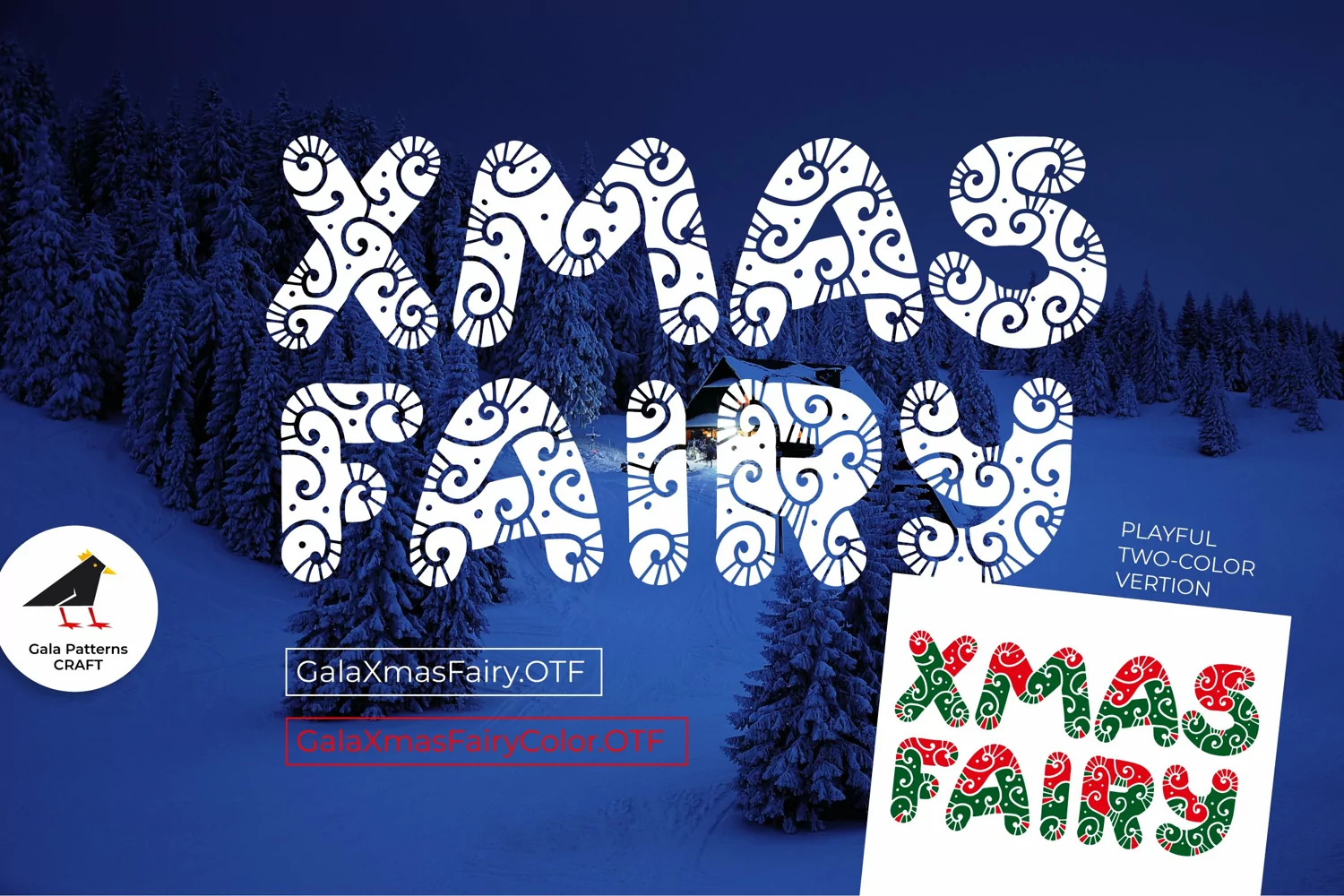
Xmas Fairy Tale - Decorative Display Typeface Font
Christmas Fairy Tale Type | Xmas Display Font OTF
Christmas Fairy Tale vibes font for lettering and greetings. Festive letters in two versions - monochrome and two-color. Christmas eve cozy cute lettering for winter holiday projects. Letters and numbers silhouette for cutting, print and sublimation.
Print, sublimate, cut. Change color and make your perfect composition.
1. monochrome normal font
2. color font with two colors -red and green.